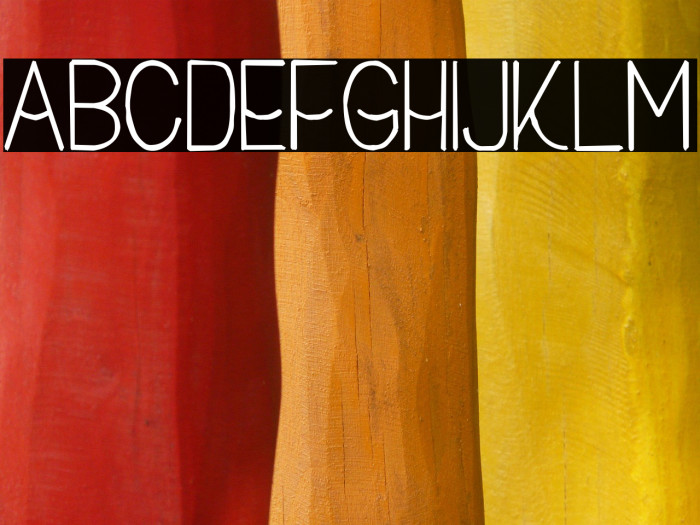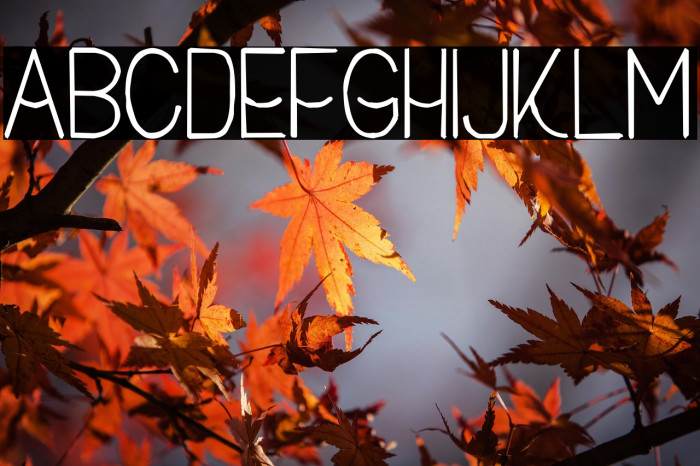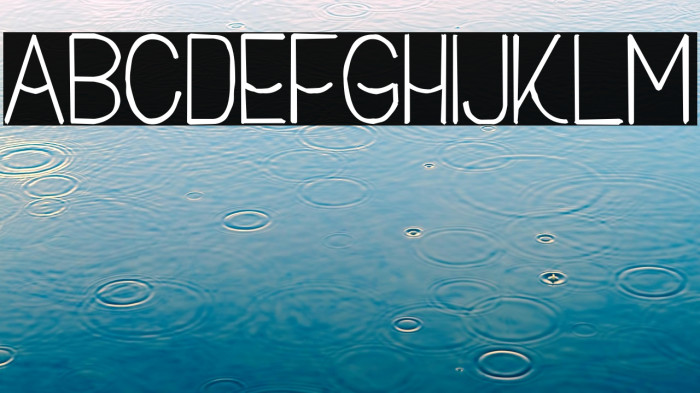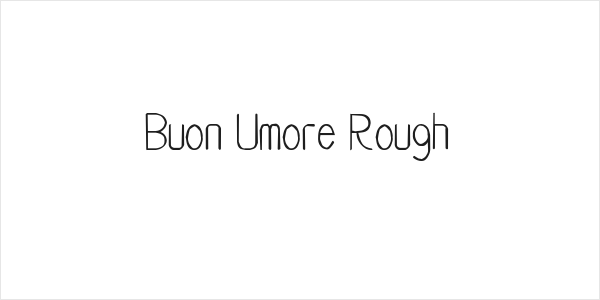
Buon Umore Rough Font
Buon Umore Rough Description
This font features a playful and whimsical design with a hand-drawn aesthetic. The characters are slightly irregular, giving it a casual and approachable feel. The uppercase letters are tall and narrow, while the lowercase letters maintain a consistent height, contributing to a cohesive look. The numbers and special characters follow the same style, ensuring uniformity across all elements. The strokes are consistent in thickness, providing a clean and modern appearance. This font is ideal for projects that require a friendly and informal touch.
| Proposed Projects | Perfect for children's books, greeting cards, playful branding, and casual invitations. |